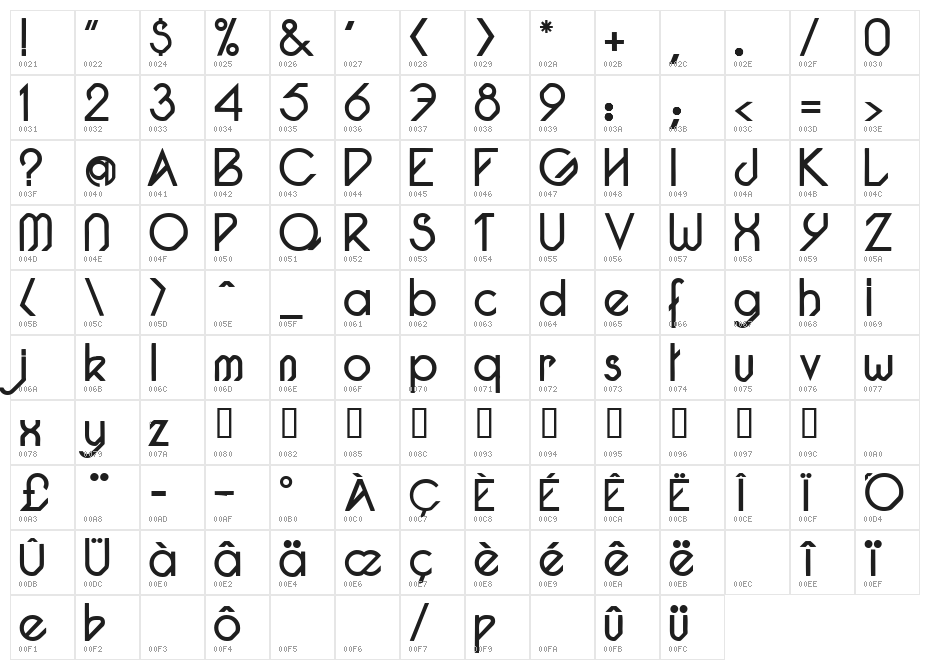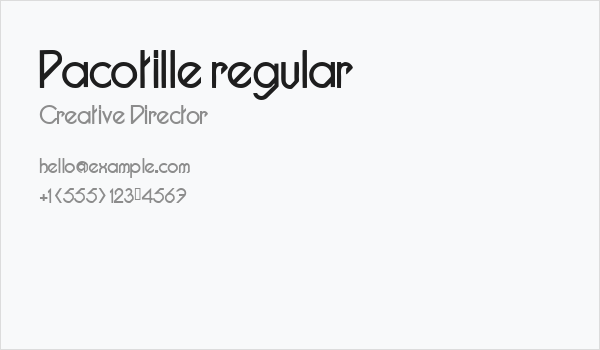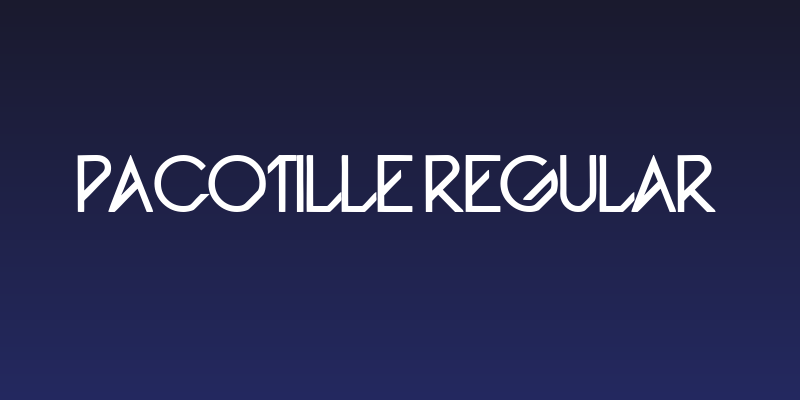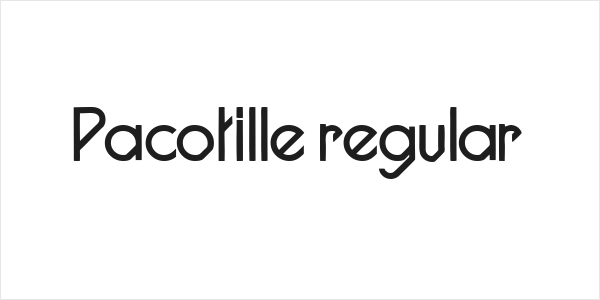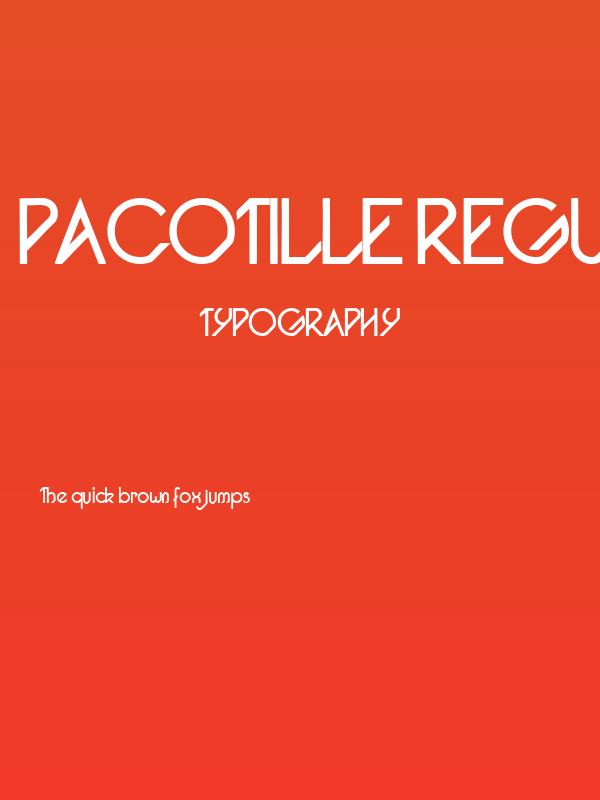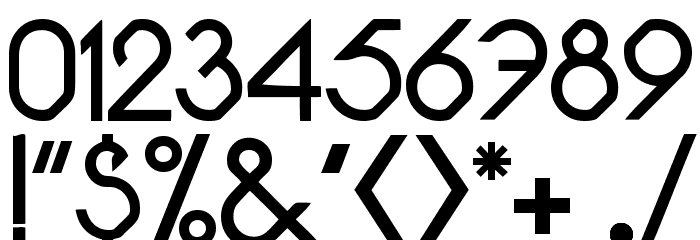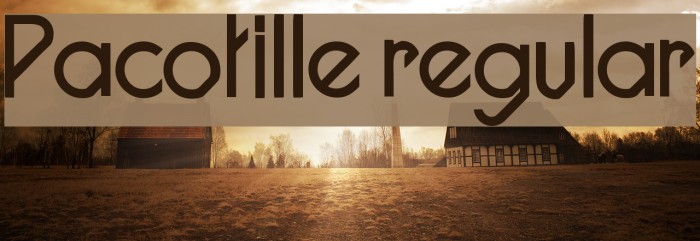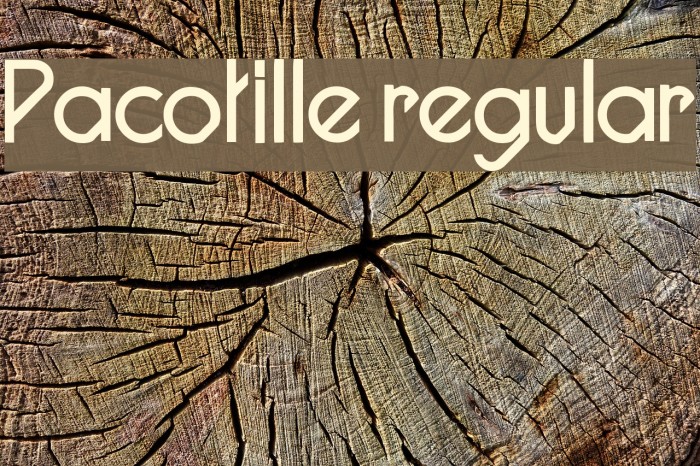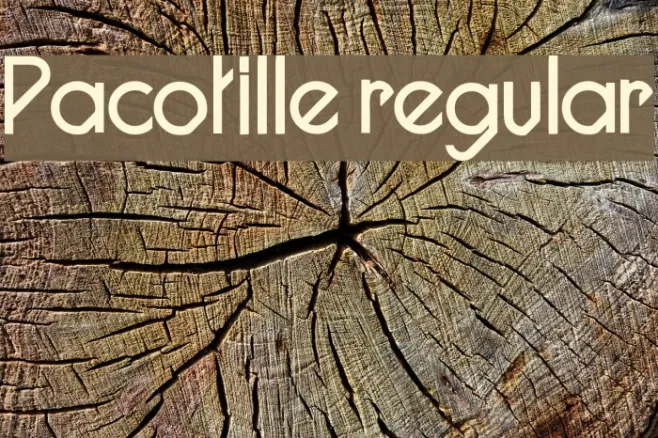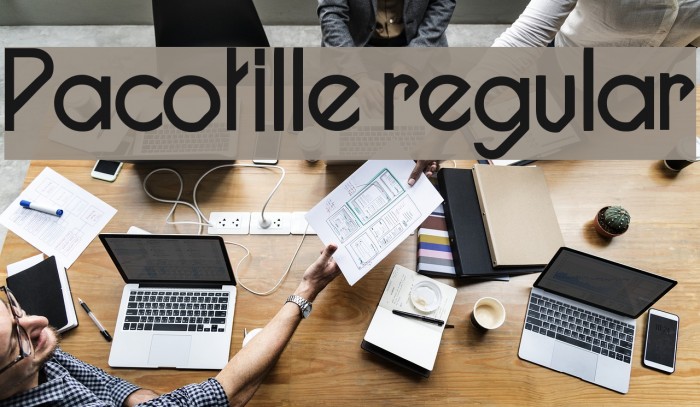
Pacotille regular Font
Pacotille regular Description
This font features a unique and modern geometric design, characterized by sharp angles and clean lines. The uppercase letters are bold and striking, with a futuristic aesthetic that is both eye-catching and distinctive. The lowercase letters maintain the geometric theme, offering a cohesive look throughout the typeface. Numbers and special characters are designed with the same attention to detail, ensuring consistency across all elements. The overall style is contemporary, making it suitable for projects that require a modern and innovative touch.